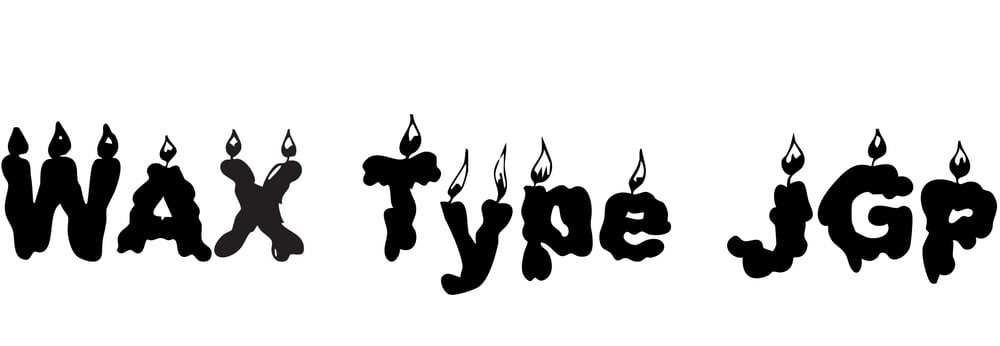
WAXtypejgp
WAXtypejgp font
WAXtypejgp Font Family was designed by Jeremy Gill-Praba and published by Jointype. WAXtypejgp contains 5 styles and family package options. This font is inspired by birthdays and the dripping of candle wax on the cake and the blowing of candles.